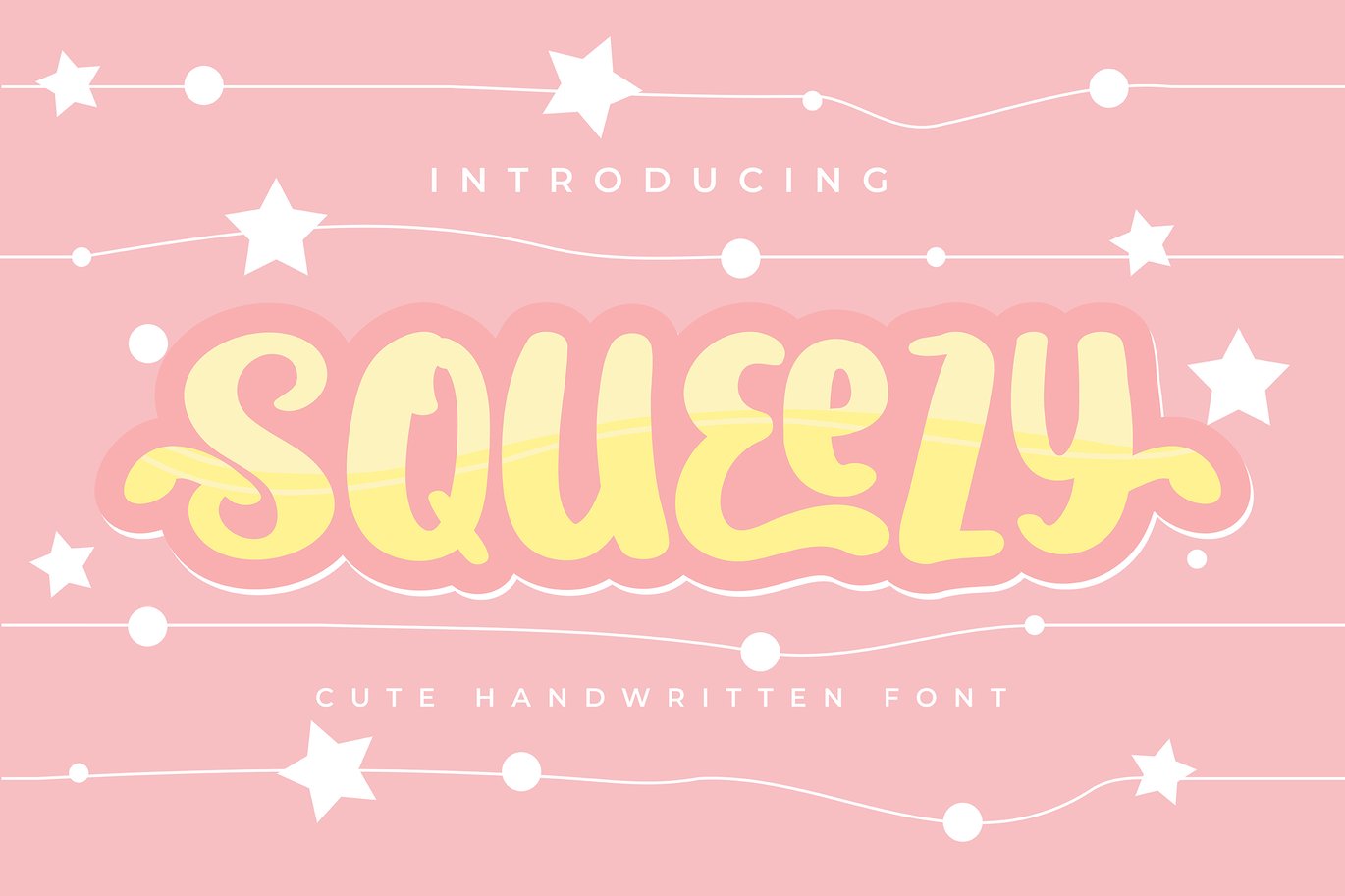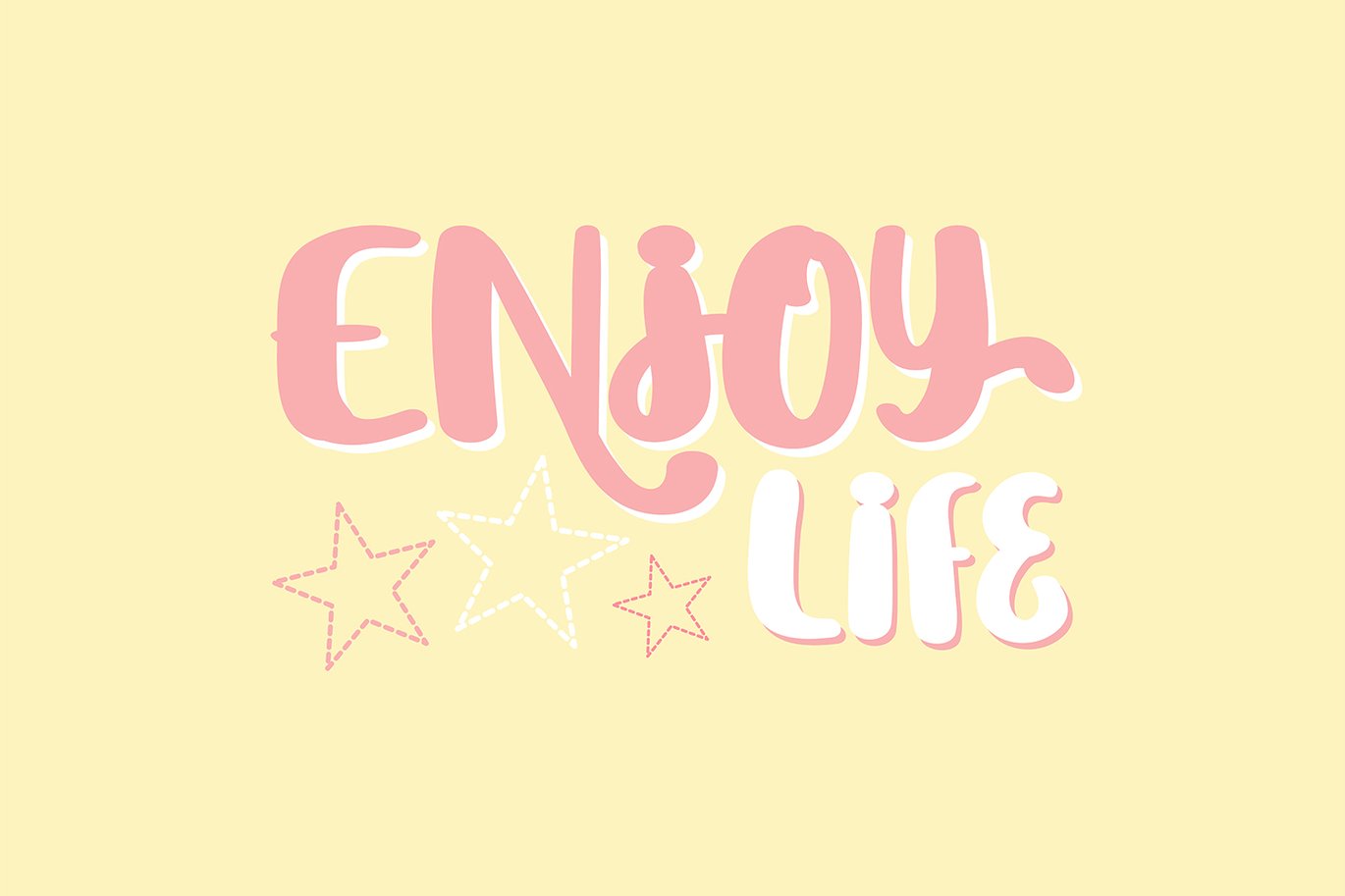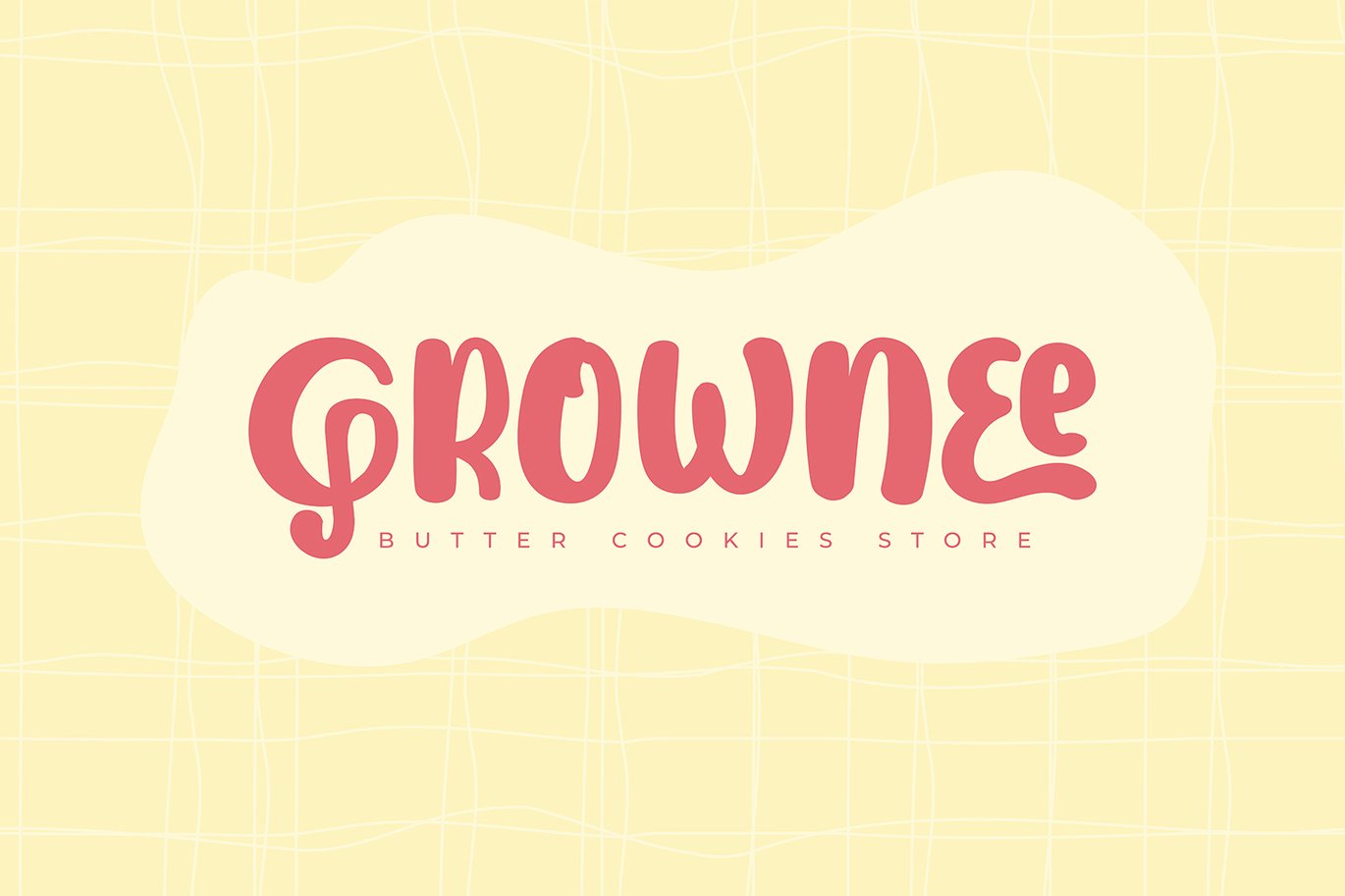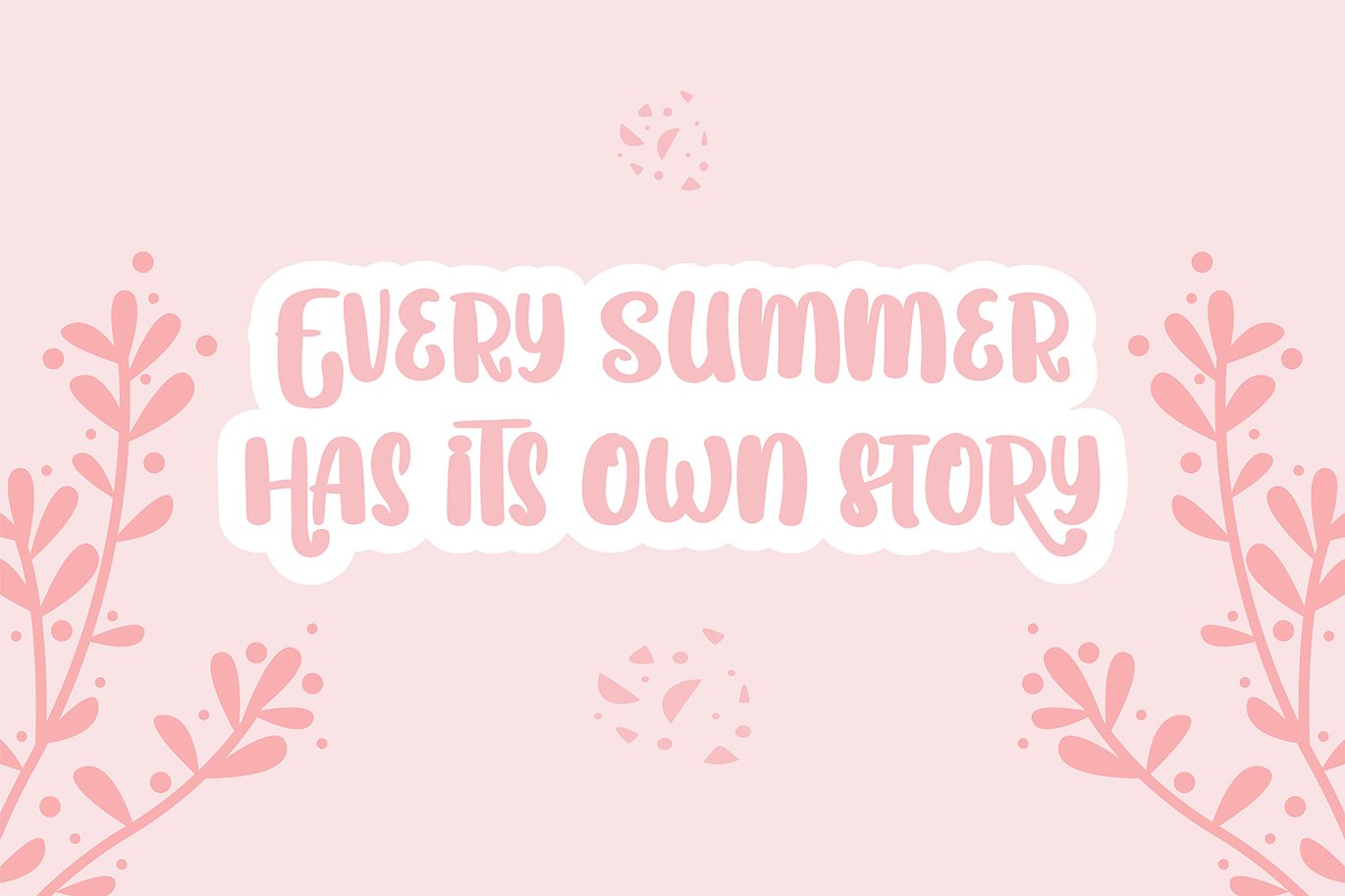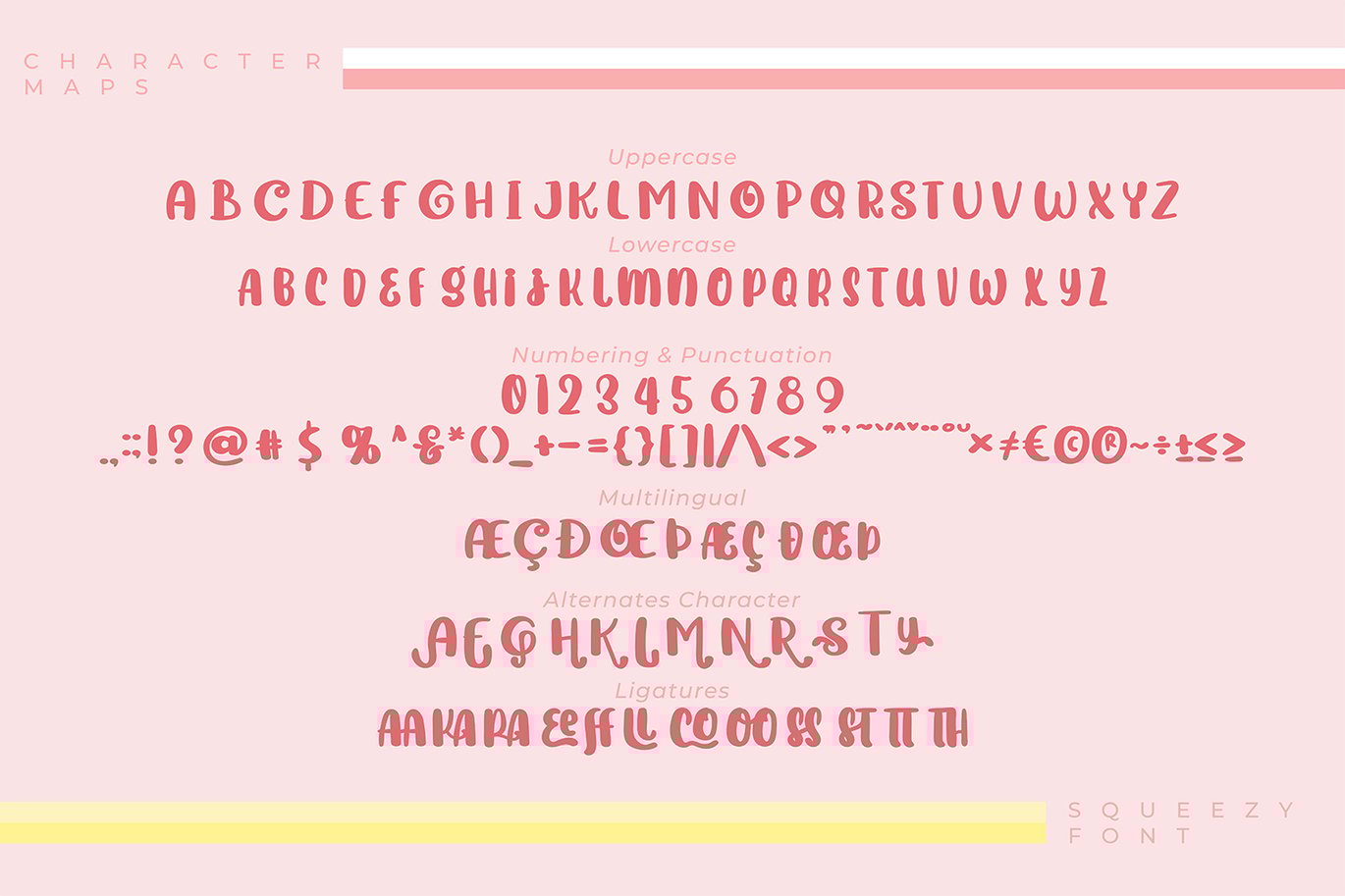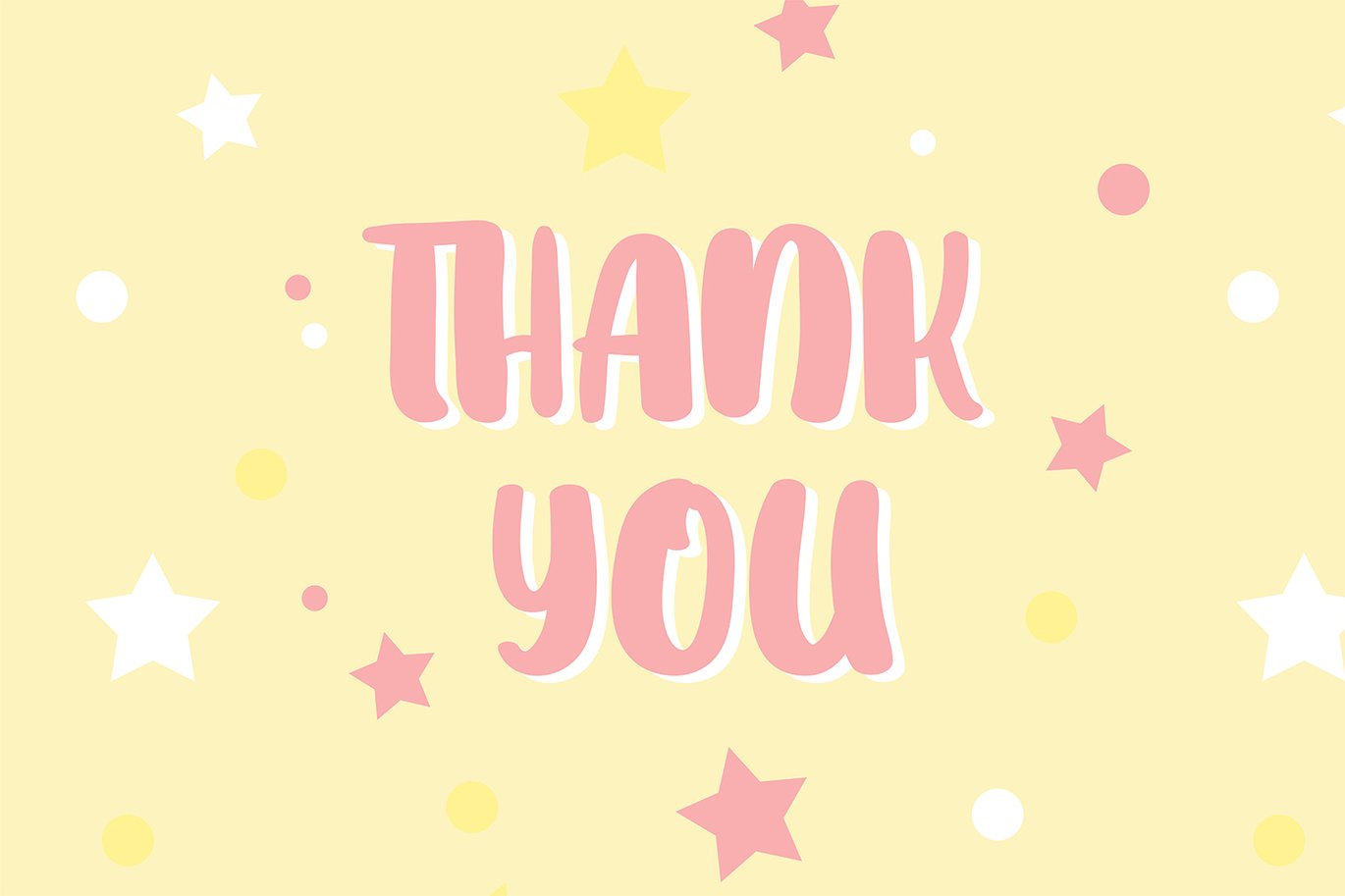
Squeezy | Cute Handwritten Font
Squeezy | Cute Handwritten Font with a calligraphy style, So beautiful on invitation like greeting cards, branding materials, business cards, quotes, posters, and more!